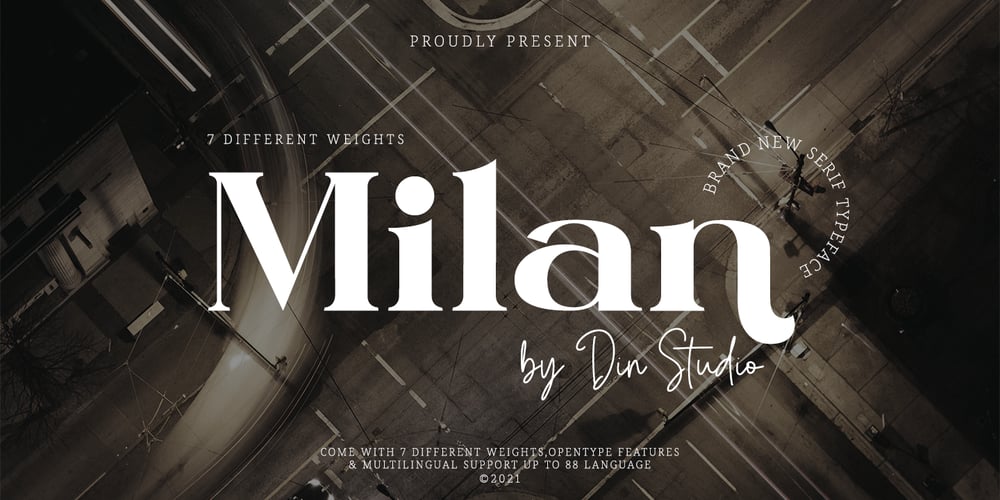
Milan
Milan font
Milan Font Family was designed by Donis Miftahudin and published by Din Studio. Milan contains 7 styles and family package options. Hello, Everyone! Ready to spark your project? Want font to make your branding bold? Looking for a fabulous, stylish, modern, and adventure font? If you need to create a big, bold logo for your business, work on a poster for an event, or whatever your project may be-then this is the perfect font for you.Milan-A Serif Font FamilyMilan is a package that will makes you super happy. We offer you a very best choice to coloring your branding or project. With this family you will get many options of weight to maximize your designs with stylish fonts. Milan is made in uppercase and lowercase that easy on the eyes and nice to look while it’s also easy to read. This font family is an excellent choice to ensure a great font match for your designs and projects! Perfect to create amazing headings, logos, menus, social media graphics, and many more. Features: Multilingual Support PUA Encoded Numerals and Punctuation Thank you for downloading premium fonts from Din Studio